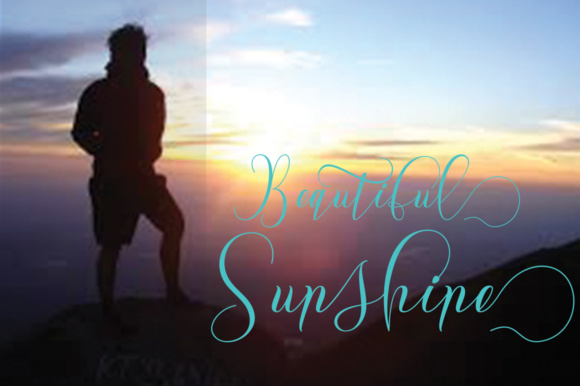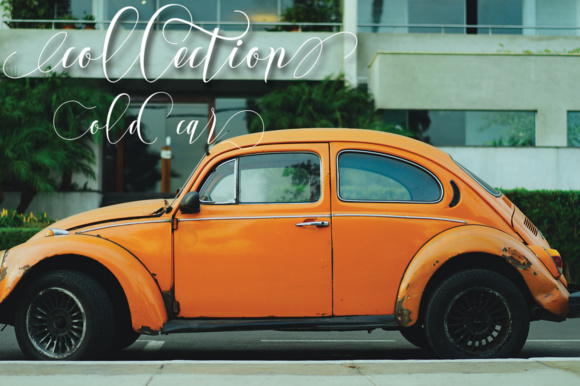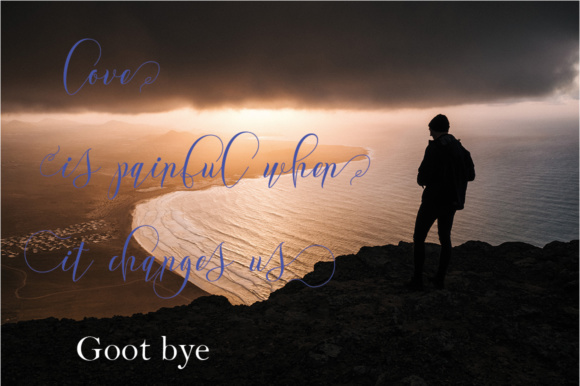
Introduction to Khungfud Font
As a designer, there’s nothing quite like the thrill of bringing a creative project to life. It’s that moment when all the pieces come together, and you get to see your vision take shape. For me, it’s the perfect font that can elevate a design from good to great. And that’s exactly what the Khungfud Font does – it adds a touch of luxury and sophistication to any project.
With its beautifully crafted calligraphy style, the Khungfud Font is a valuable resource for designers looking to create high-quality designs that stand out from the crowd. Whether you’re working on a branding project, a wedding invitation, or a creative poster, this font is sure to impress. And the best part? It’s available for free download, making it an accessible design resource for designers of all levels.
- High-quality design resource with a unique, creative aesthetic.
- Perfect for designers working on creative projects that require a touch of elegance and sophistication.
Honest Review: Khungfud Font
Here’s what I like about the Khungfud Font: ✨
- Its high-quality design makes it perfect for professional projects.
- The transparent background allows for seamless integration with any image or background.
- The font’s unique style makes it stand out in any creative project.
However, there are some limitations to consider: ⚠️
- The character set is limited, which may cause issues for projects requiring extensive typing.
Overall, I’m impressed with the Khungfud Font, and I’d highly recommend it for designers looking for a unique and high-quality design resource. Its limitations are relatively minor, and I’m confident it will be a valuable addition to my design toolkit.
The Khungfud Font is a high-quality, free download that can elevate any creative project. This versatile font is perfect for designers looking for a unique and stylish design resource.
To get the most out of the Khungfud Font, use it with a transparent background to create a clean and minimalist look. Experiment with different font sizes, colors, and combinations to add visual interest to your designs.
The Khungfud Font is perfect for:
- Branding and logo design
- Typography-based graphics
- Infographics and data visualizations